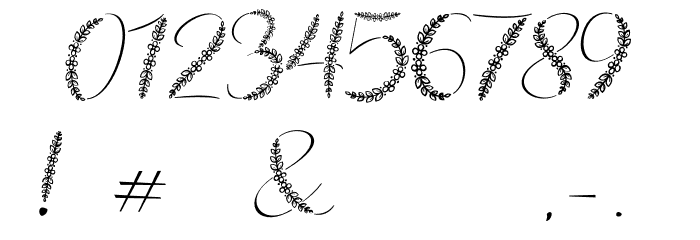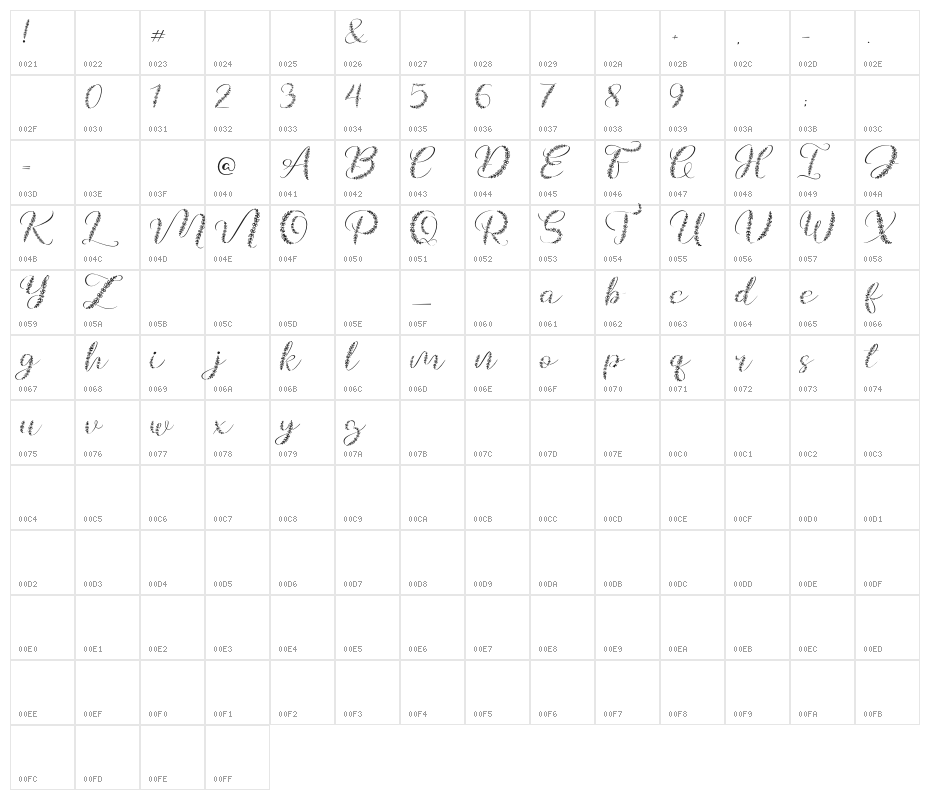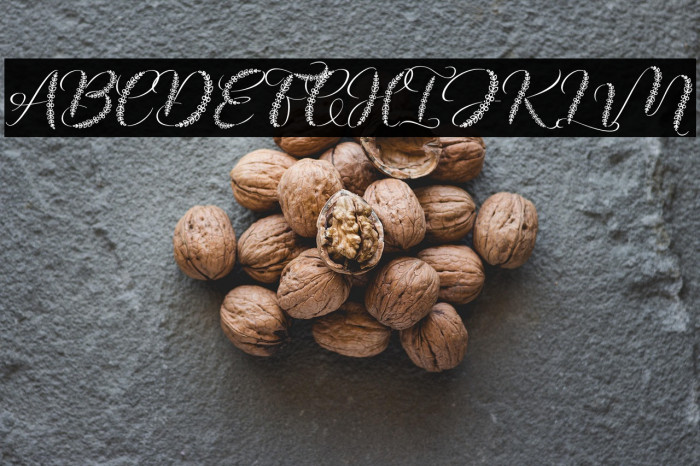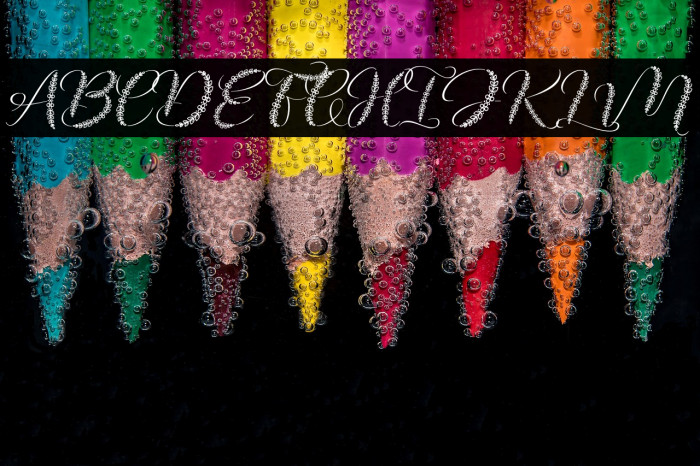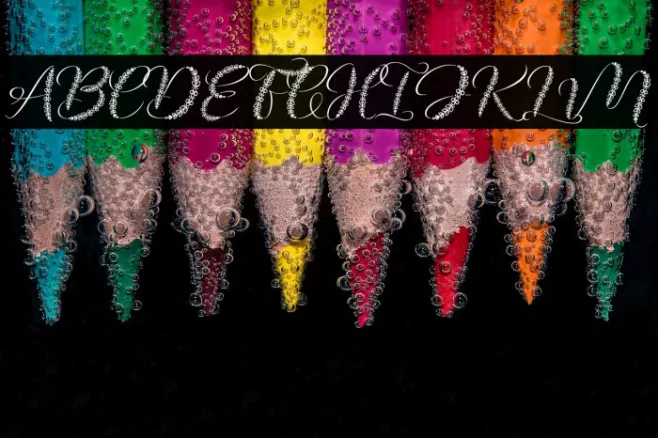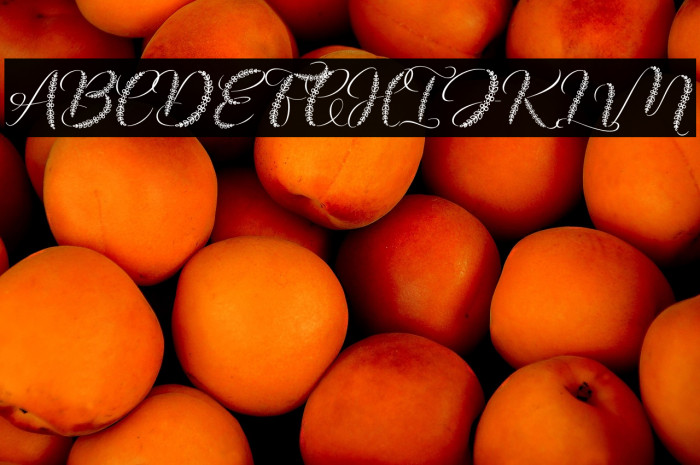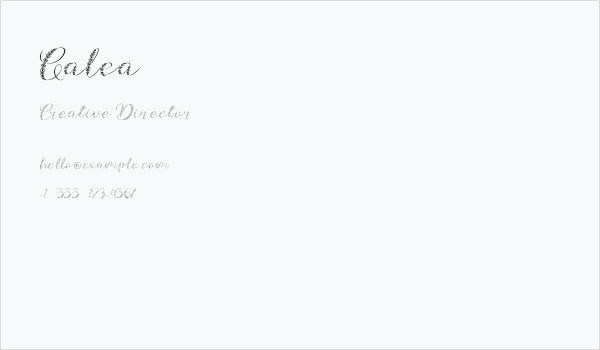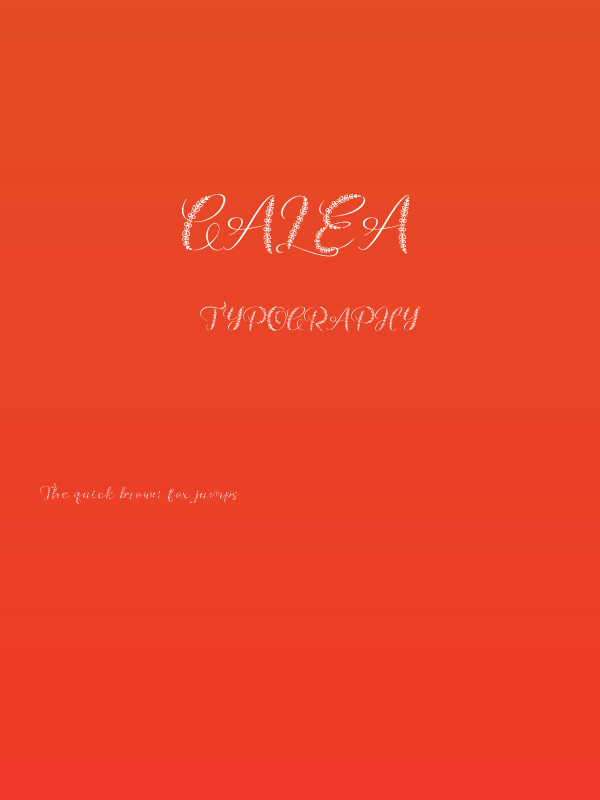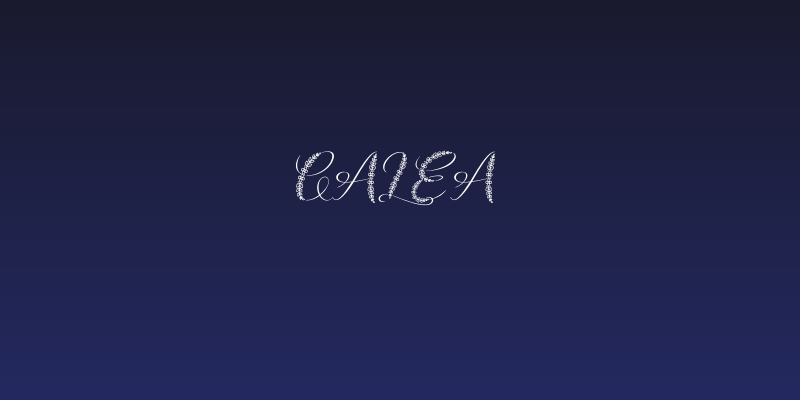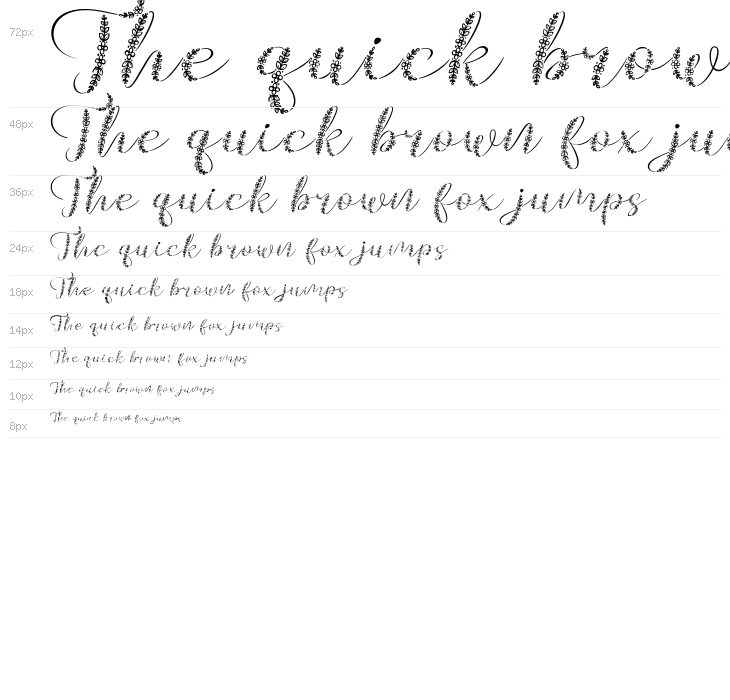
Galea Font
Galea Description
This font features an elegant and decorative script style, characterized by intricate floral embellishments that adorn each letter. The design is highly ornamental, with a flowing, cursive structure that gives it a sophisticated and artistic appearance. The uppercase and lowercase letters maintain a consistent style, with each character uniquely incorporating leaf-like patterns that enhance its visual appeal. The numerals and special characters follow the same decorative theme, ensuring a cohesive look across all elements. This font is perfect for projects that require a touch of elegance and creativity.
| Use Case | Logos, Invitations, Artistic Designs |
| Proposed Projects | Ideal for wedding invitations, greeting cards, luxury branding, and artistic projects. |